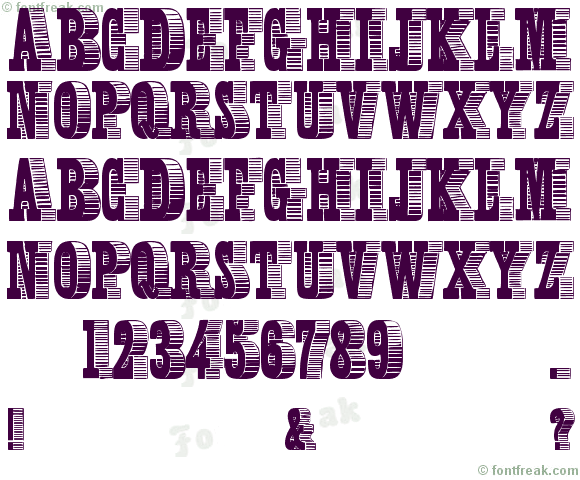
Shady Characters Medium
About Shady Characters
Shady Characters by West Wind Fonts is a unique decorative typeface that captures the essence of whimsical artistry. This font is characterized by its playful strokes and medium weight, offering a delightful balance between legibility and stylistic flair. The design features a charming and slightly irregular structure, which gives it an organic feel, making it perfect for creative projects that require a touch of personality. The strokes exhibit moderate contrast, enhancing the visual interest of each character while maintaining a cohesive look across the typeface. The spacing is thoughtfully designed to ensure readability, even in longer texts.
Ideal use cases for Shady Characters include wedding invitations, where its playful nature can convey a sense of joy and celebration. It also shines in movie posters, particularly for romantic comedies or indie films, where the font can add an inviting aesthetic. Restaurant menus benefit from its unique charm, helping to create a memorable dining experience that reflects the restaurant's personality. Additionally, it can be an excellent choice for greeting cards and social media graphics, appealing to content creators looking to add a distinctive touch to their posts.
The target audience for this font includes graphic designers, small business owners, and content creators who seek to infuse their work with character and creativity. It allows them to break away from traditional typefaces and explore a more expressive avenue in their designs.
What sets the Shady Characters font apart is its ability to evoke a sense of warmth and approachability while remaining visually striking. This font is not just a typeface; it's a conversation starter that invites viewers to engage with the text. With a Shady Characters font free download available, it’s easy to incorporate this enchanting typeface into your next creative project.